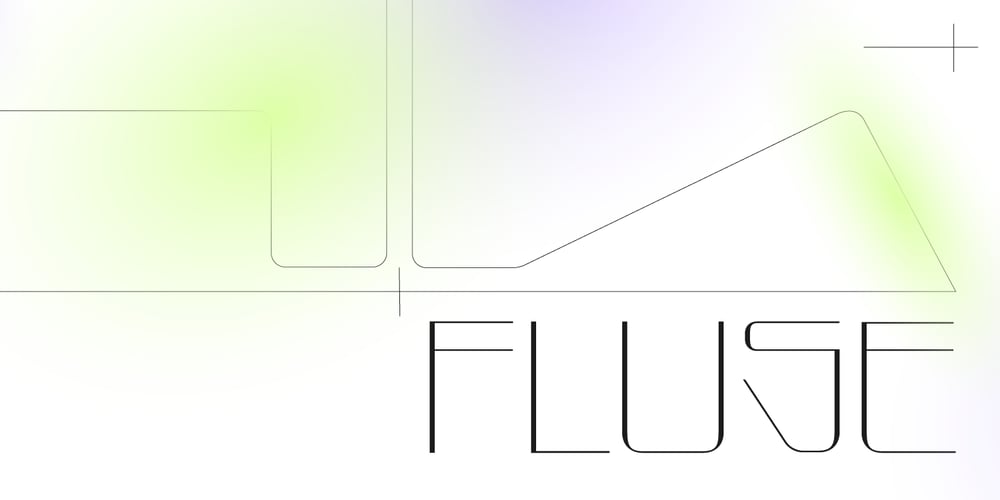
Fluse Font Family was designed by Victor Pesotsky and published by Pesotsky Victor. Fluse contains 1 styles and family package options. «Fluse» is an accidental sans-serif font. It has an angular design but smooth and sleek shapes. The font is suitable for both active titles and medium-sized texts. It can also be an accent in a poster or the basis of a corporate identity.Fluse supportsBasic Latin, Cyrillic and more than 100 languages all together.The font was designed by Viktor Pesotsky.